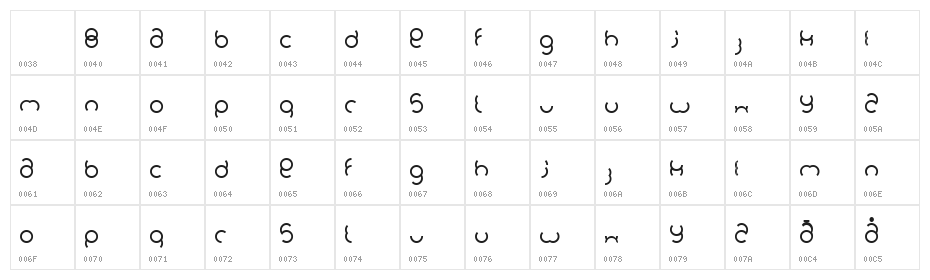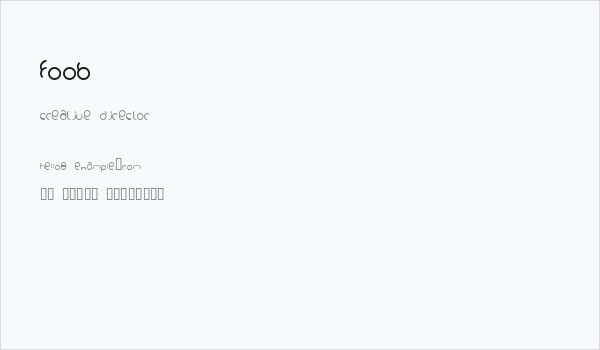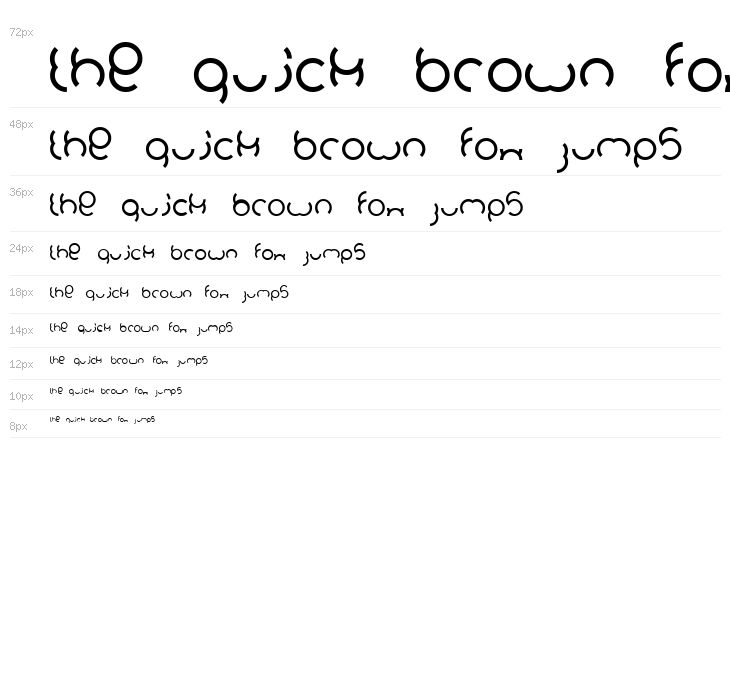
foob Font
foob Description
This font features a unique and artistic design with a modern twist. The characters are crafted with a blend of curves and sharp edges, creating a visually intriguing and dynamic appearance. The uppercase and lowercase letters maintain a consistent style, emphasizing the font's cohesive look. The numerals and special characters are designed to match the overall aesthetic, ensuring uniformity across all text elements. This font's distinct style makes it suitable for creative and contemporary projects, where a bold and artistic statement is desired.
| Proposed Projects | Ideal for branding, posters, album covers, and creative digital media. |